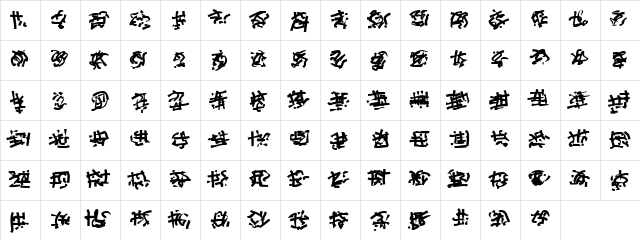
Runes of the Dragon Two Regular
Design Context for Runes of the Dragon Two Typeface
Runes of the Dragon Two is a composed and adaptable typeface that performs quietly and consistently across a wide range of design contexts.